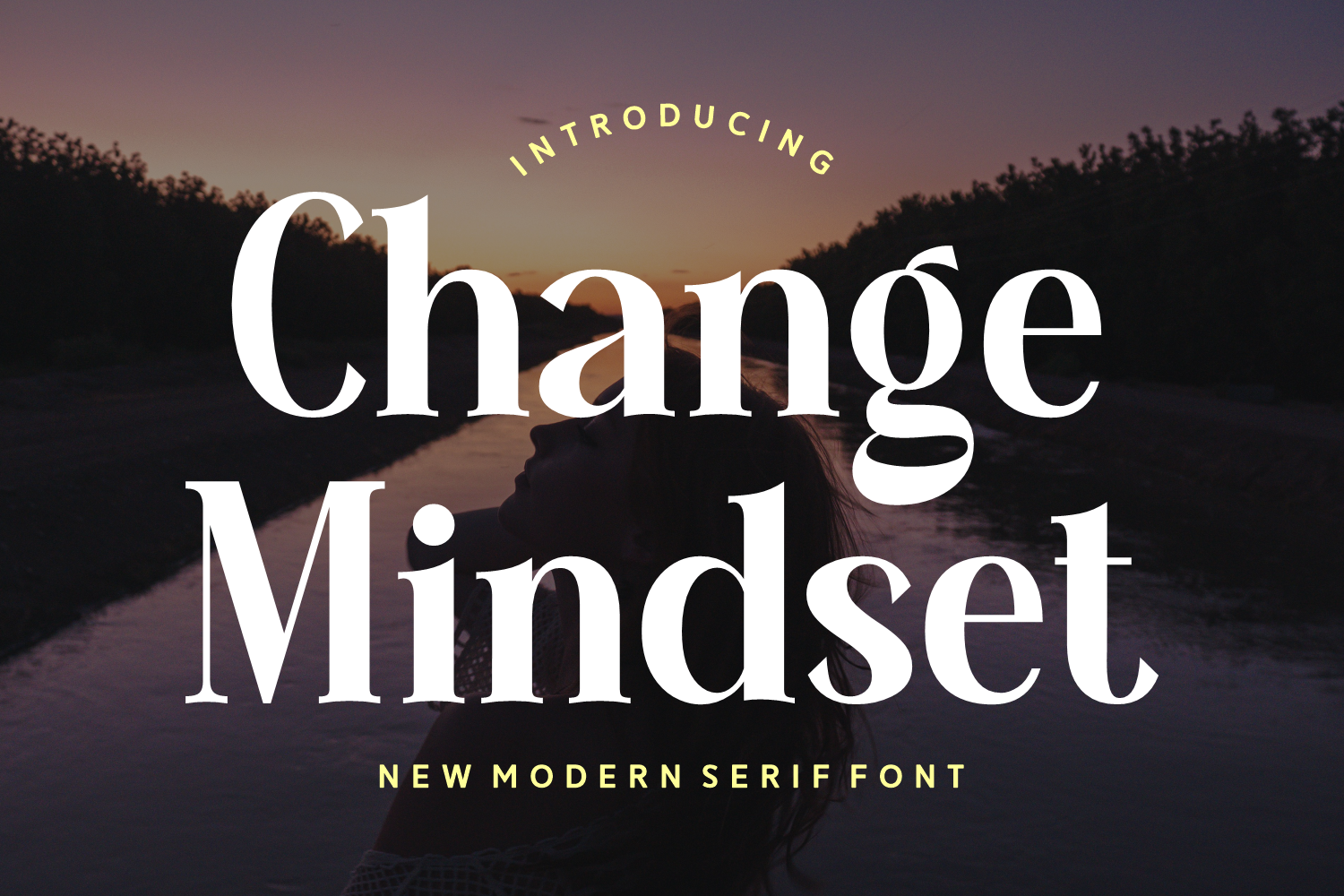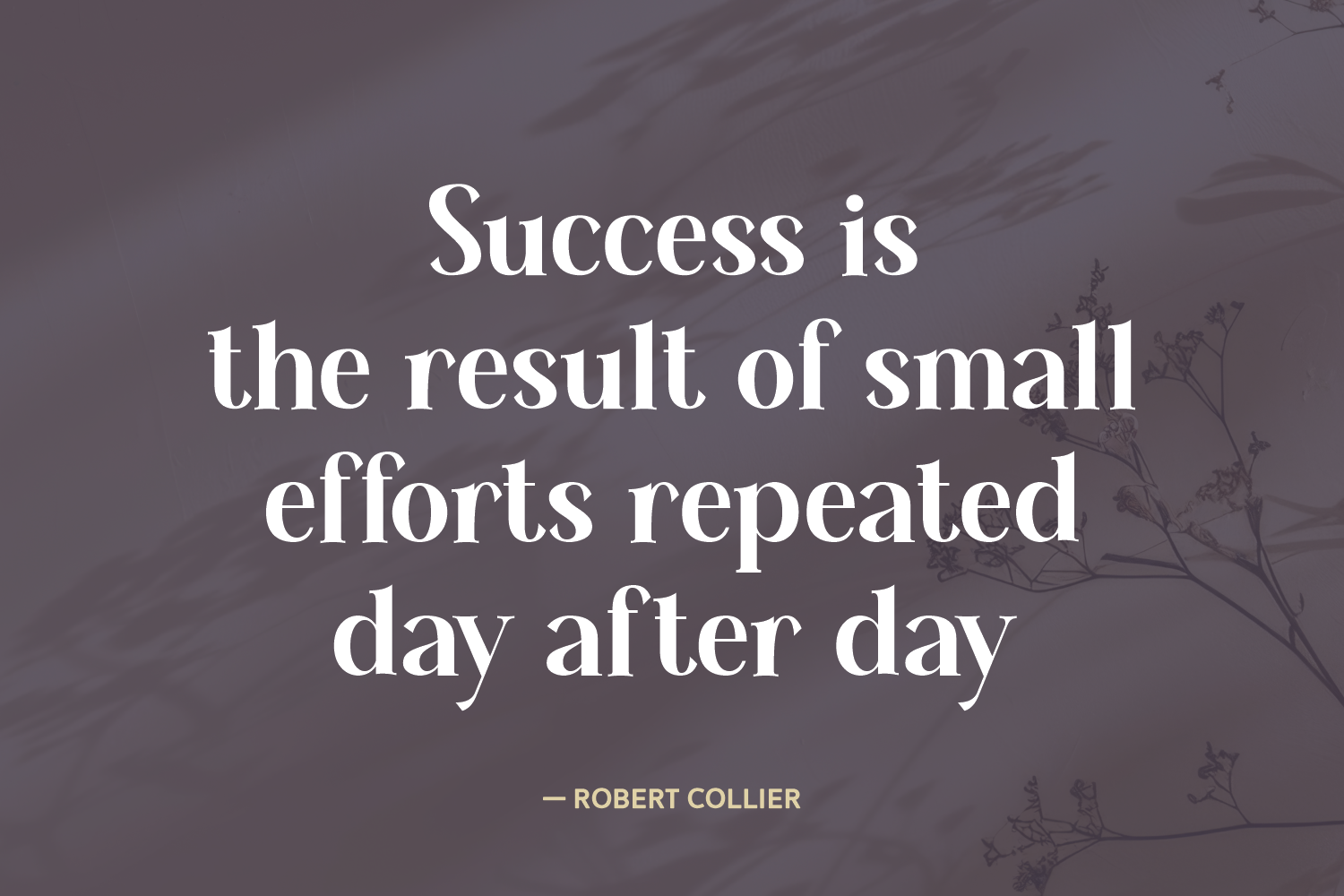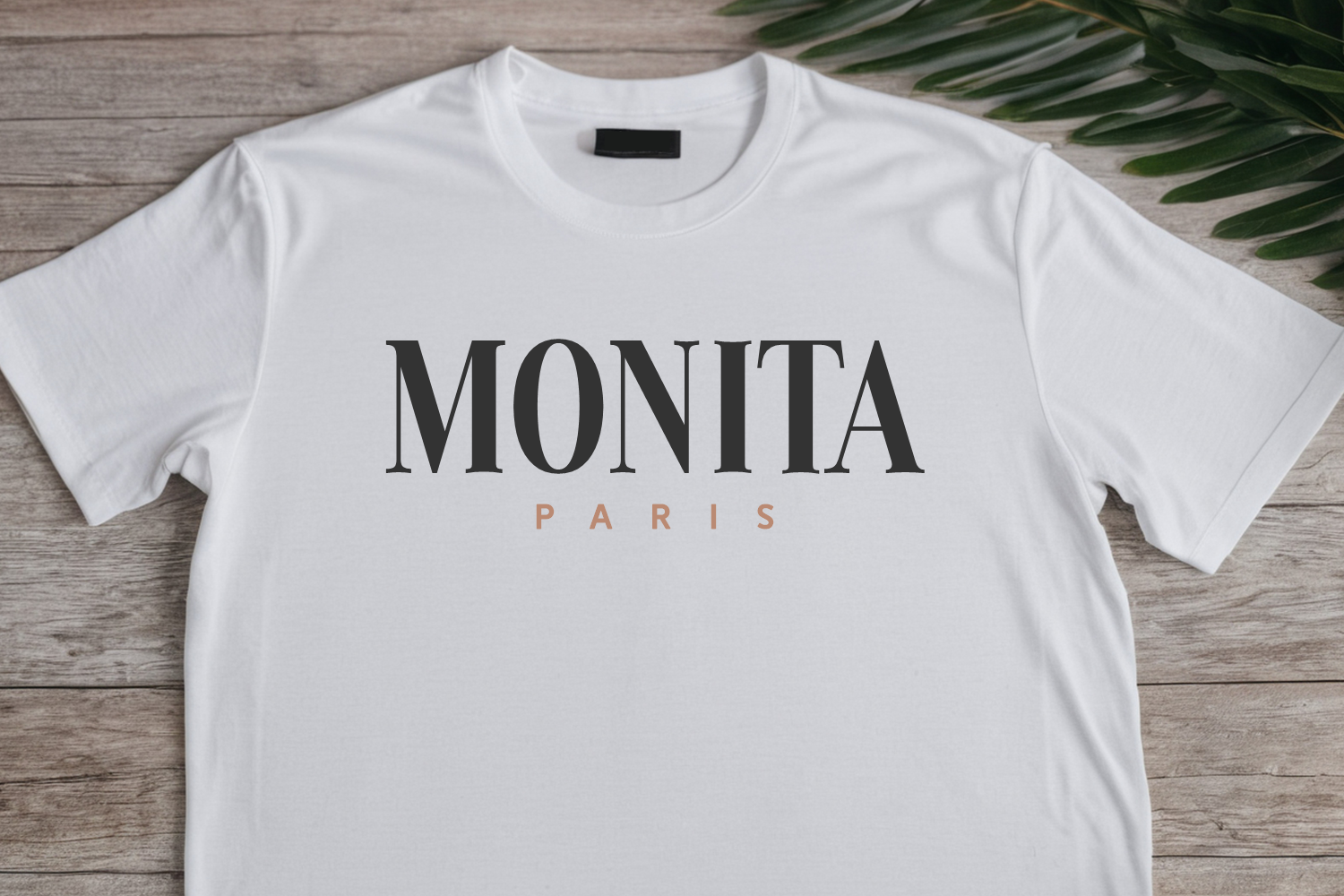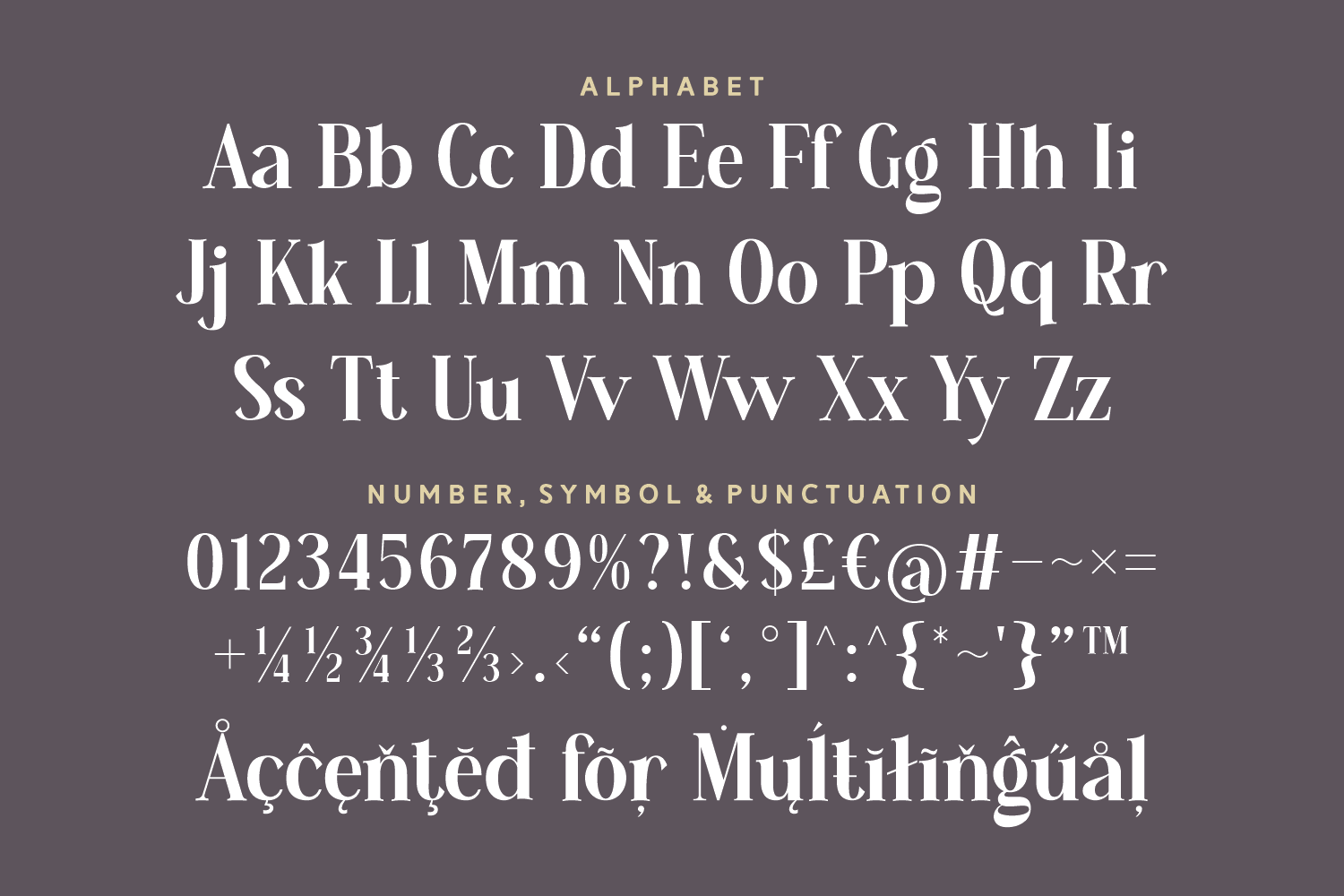
Change Mindset
Change Mindset is a modern serif font that combines bold presence with graceful detail. Designed to evoke elegance and clarity, it's perfect for motivational projects, personal branding, and editorial headlines.